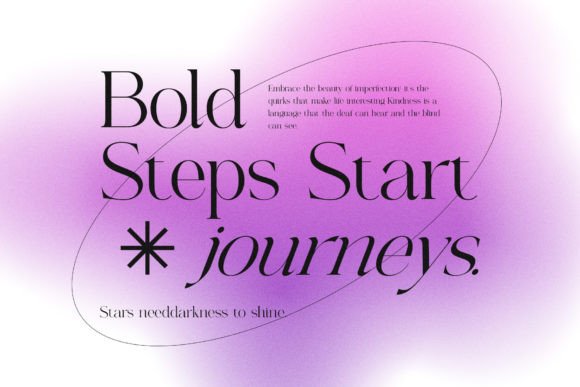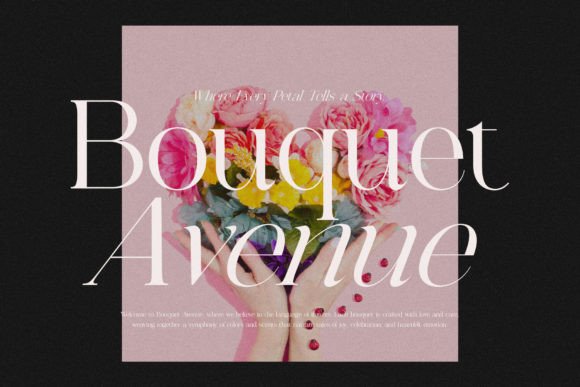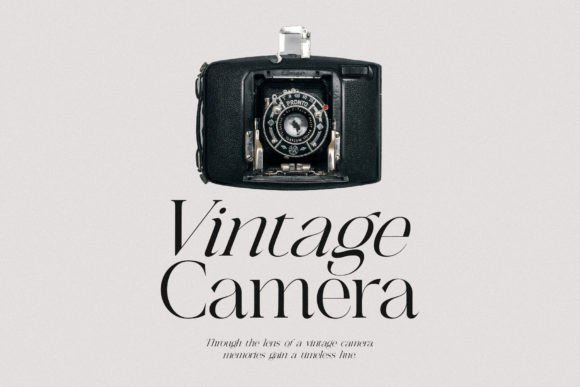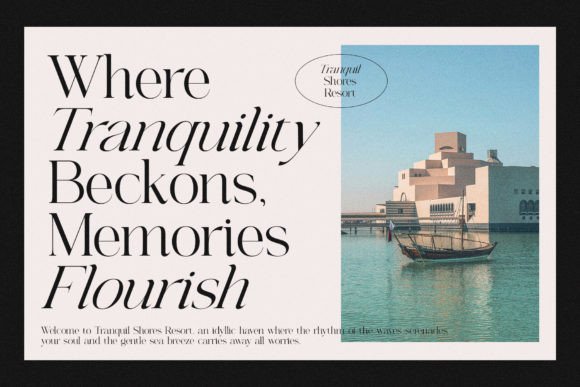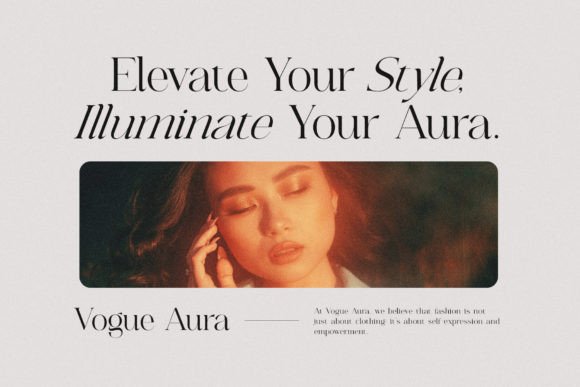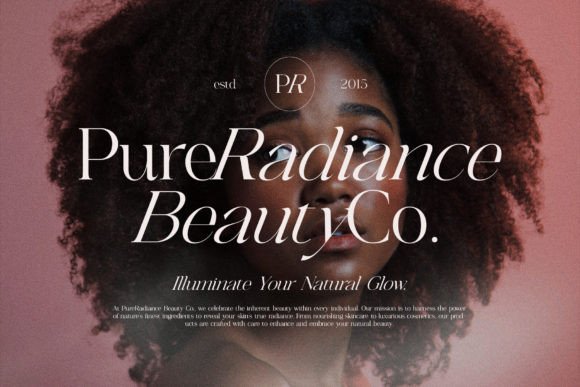
Introducing Byfords Sanchez Font: Elevate Your Designs with Elegance and Sophistication
In the world of typography, a new modern serif font has emerged, making waves with its cool and elegant impression. Byfords Sanchez Elegant Serif Font is a stunning addition to the realm of digital design, boasting a perfect blend of regular and italic styles that creates a striking visual impact. In this article, we’ll dive into the features and benefits of Byfords Sanchez Font, exploring its unique characteristics, uses, and why it’s an excellent choice for designers and crafters.
Aesthetics and Design
Byfords Sanchez Font is characterized by its chic letterforms, which make the counterstrokes remarkably noticeable. The font’s design is a masterful balance of smooth curves and firm lines, resulting in a flawless appearance. While the line thickness may not be the primary attractiveness, it adds a touch of elegance, making this font suitable for formal work projects. The bold impression is palpable, thanks to the firm lines, which provide a sense of confidence and sophistication.
Versatility and Readability
One of the standout features of Byfords Sanchez Font is its exceptional readability. This font is designed to convey messages clearly and effectively, making it an excellent choice for a wide range of applications. Whether you’re working on magazines, newspapers, journals, book titles, or any other formal project, Byfords Sanchez Font is an excellent option. Its high level of readability ensures that your content is easily digestible, allowing your audience to focus on the message rather than struggling to decipher the text.
Applications and Use Cases
Byfords Sanchez Font is a versatile typeface that can be used in various contexts, including:
- Magazines and newspapers: Add a touch of elegance to your publication with Byfords Sanchez Font, making it perfect for headlines, subheadings, and body text.
- Journals and academic papers: The font’s formal and sophisticated appearance makes it an excellent choice for scholarly publications.
- Book titles and covers: Make a lasting impression with Byfords Sanchez Font, which is sure to grab the attention of readers.
- Branding and advertising: Use this font to create a cohesive and professional visual identity for your brand.
Why Choose Byfords Sanchez Font?
Byfords Sanchez Font offers a unique combination of style, elegance, and readability, making it an attractive option for designers and crafters. Here are a few reasons why you should consider using this font:
- Unique blend of styles: The font’s regular and italic styles create a striking visual impact, adding depth and interest to your designs.
- Elegant and sophisticated: Byfords Sanchez Font exudes refinement and poise, making it perfect for formal projects and high-end branding.
- Exceptional readability: The font’s clear and legible design ensures that your message is conveyed effectively, without straining the reader’s eyes.
Byfords Sanchez Elegant Serif Font is a game-changer in the world of typography. Its elegant design, versatility, and exceptional readability make it an excellent choice for designers and crafters seeking to elevate their projects. Whether you’re working on a formal publication or a high-end branding campaign, Byfords Sanchez Font is sure to impress. With its unique blend of style and sophistication, this font is poised to become a staple in the design community.